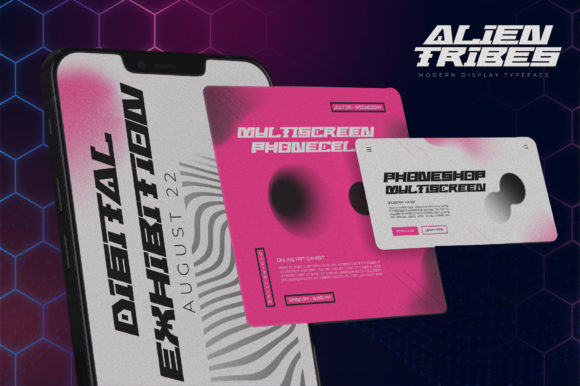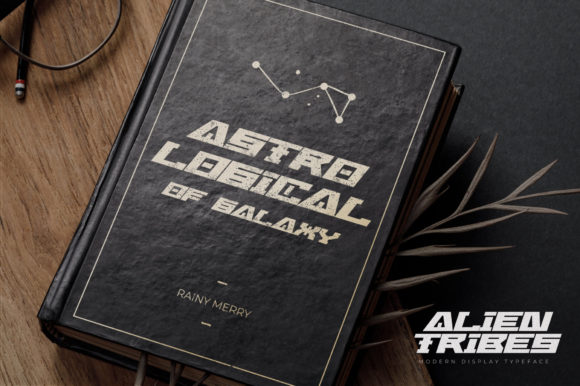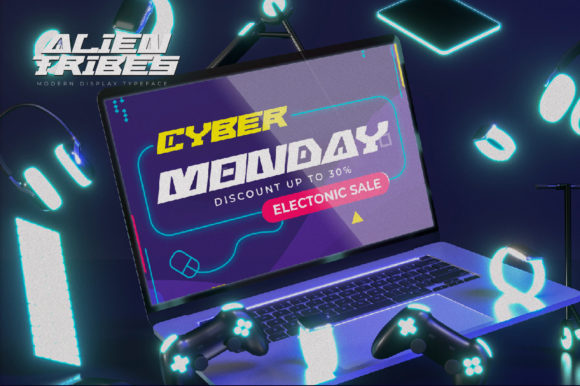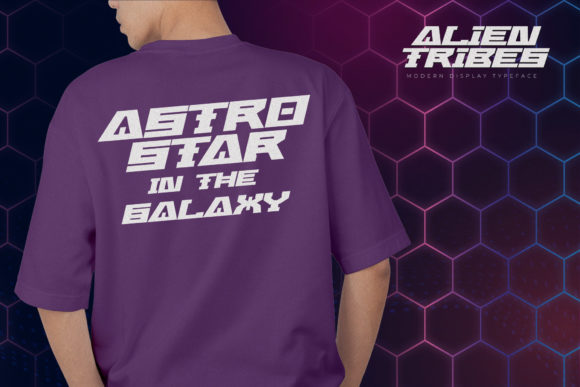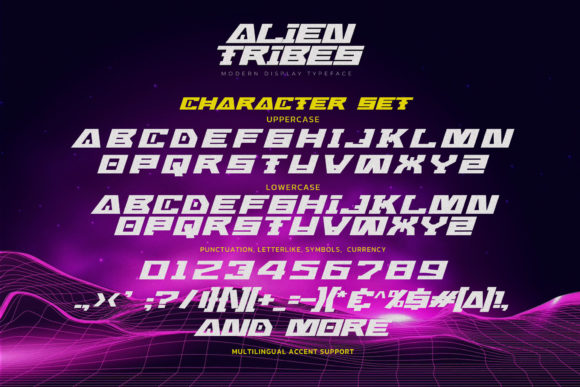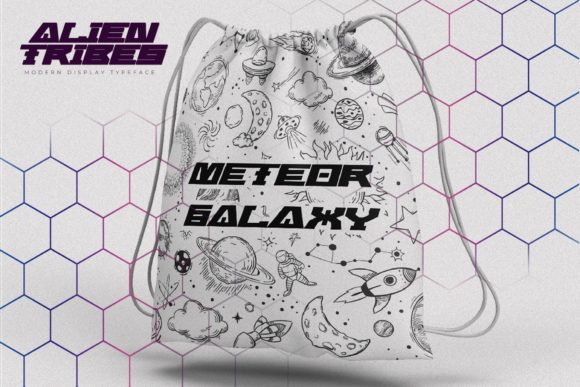
Introducing Alien Tribes Font: The Ultimate Display Font for Bold Designs
Are you tired of using the same old fonts for your designs? Look no further! Alien Tribes Font is a game-changing, futuristic, sporty, and thick lettered display font that’s perfect for making a statement. In this article, we’ll dive into the features and benefits of Alien Tribes Font, and explore how it can elevate your designs to the next level.
What is Alien Tribes Font?
Alien Tribes Font is a bold, eye-catching display font that’s designed to grab attention. With its futuristic and sporty vibe, it’s ideal for creating stunning product packaging, branding projects, magazine covers, social media graphics, and more. The font’s thick letters and unique design make it perfect for adding a touch of edginess to your designs.
Key Features of Alien Tribes Font
- Unique and Bold Design: Alien Tribes Font features a one-of-a-kind design that’s sure to turn heads. Its thick letters and futuristic style make it perfect for creating bold and eye-catching designs.
- Versatile: This font is perfect for a wide range of design projects, from product packaging and branding to magazine covers and social media graphics.
- Easily Customizable: Alien Tribes Font is easy to customize, allowing you to adjust the font to fit your design needs.
- High-Quality: The font is designed with high-quality and clarity in mind, ensuring that it looks great in any size or resolution.
Benefits of Using Alien Tribes Font
So, why should you choose Alien Tribes Font for your designs? Here are just a few benefits of using this amazing font:
- Adds a Touch of Edginess: Alien Tribes Font adds a touch of edginess to your designs, making them stand out from the crowd.
- Increases Brand Recognition: The font’s unique design makes it perfect for creating memorable brand identities that will stick in customers’ minds.
- Perfect for Social Media: With its bold and eye-catching design, Alien Tribes Font is perfect for creating social media graphics that will grab attention and drive engagement.
- Great for Crafters and Designers: Whether you’re a professional designer or a crafty DIY enthusiast, Alien Tribes Font is a great addition to your design toolkit.
How to Use Alien Tribes Font
Using Alien Tribes Font is easy! Here are a few tips for incorporating it into your designs:
- Pair it with a Simple Background: Let the font be the star of the show by pairing it with a simple background that won’t compete for attention.
- Experiment with Colors: Try out different colors and gradients to add depth and interest to your designs.
- Use it for Headlines and Titles: Alien Tribes Font is perfect for creating bold and eye-catching headlines and titles.